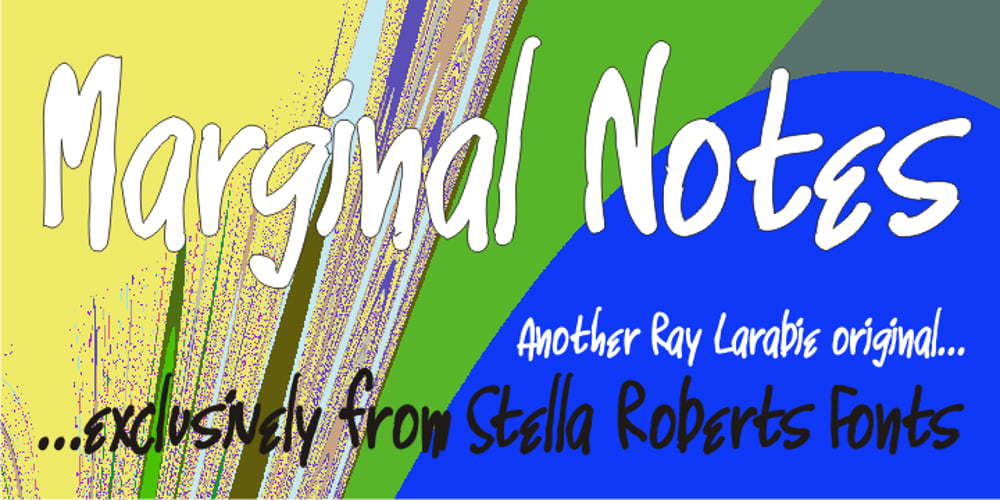
Marginal Notes SRF Font Family was designed by published by Stella Roberts Fonts. Marginal Notes SRF contains 1 styles and family package options. Marginal Notes SRF is from the creative pen of Ray Larabie whose Typodermic foundry graces MyFonts.com. Designed to emulate the look of handwritten words using a felt tip pen, this font can be perfectly applied to any project where notations, subtext, memos or other forms of personalization with a human touch is required. The net profits from my font sales help defer medical expenses for my siblings, who both suffer with Cystic Fibrosis and diabetes. Thank you.